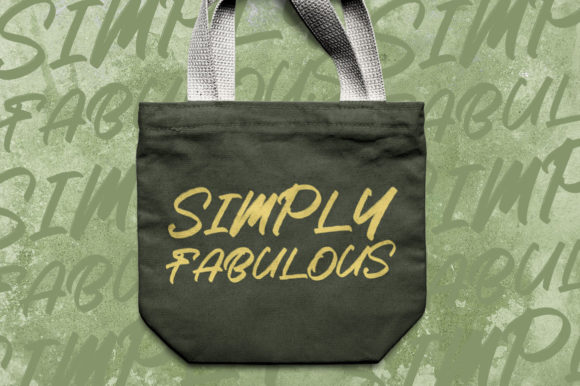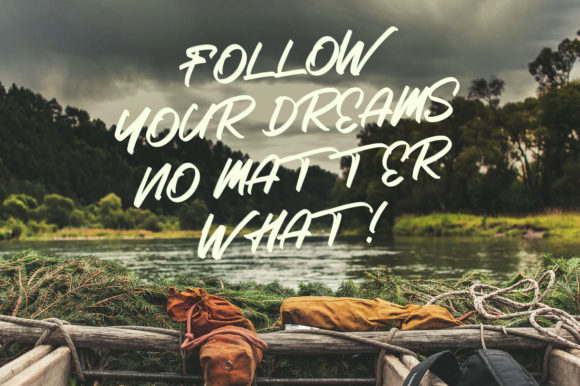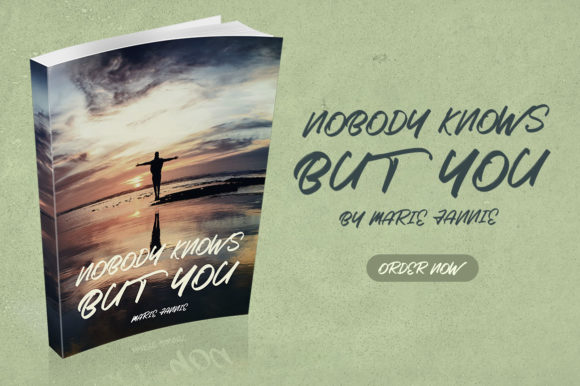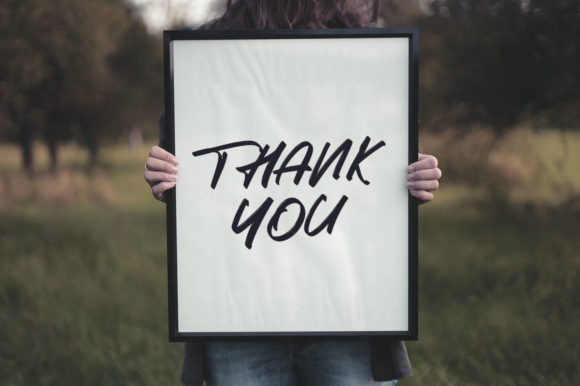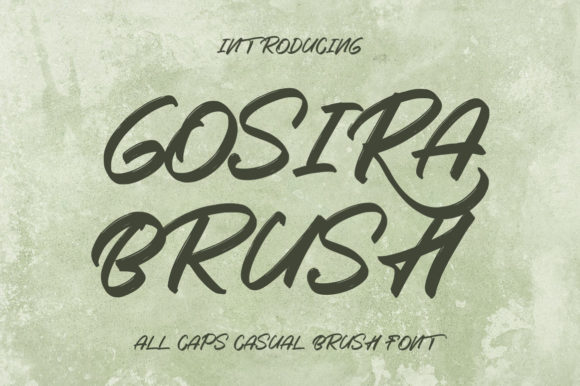
Gosira Brush Font: The Perfect Casual and Fun Display Font for Designers and Crafters
Are you looking for a font that can add a touch of personality to your designs? Look no further than the Gosira Brush Font. This casual, fun display font is created by using a brush pen, giving it a clean and quirky feel that’s perfect for a variety of projects. In this article, we’ll take a closer look at the Gosira Brush Font and explore its features, benefits, and uses.
What is Gosira Brush Font?
Gosira Brush Font is a display font that is designed to mimic the look of brush pen writing. It’s a casual and fun font that’s perfect for adding a personal touch to your designs. The font is clean and a little bit quirky, making it ideal for projects that require a bit of whimsy and personality.
Features of Gosira Brush Font
The Gosira Brush Font has several features that make it a great choice for designers and crafters. Some of its key features include:
- Unique and Quirky Design: The Gosira Brush Font has a unique and quirky design that’s perfect for adding a personal touch to your projects.
- Clean and Legible: Despite its quirky design, the Gosira Brush Font is clean and legible, making it easy to read and understand.
- Brush Pen Effect: The font is created by using a brush pen, giving it a natural and hand-crafted feel.
- Versatile: The Gosira Brush Font is versatile and can be used for a variety of projects, including logos, branding, social media, and crafty DIY projects.
Benefits of Using Gosira Brush Font
There are several benefits to using the Gosira Brush Font in your designs. Some of the benefits include:
- Adds Personality to Your Designs: The Gosira Brush Font adds a personal touch to your designs, making them more engaging and interesting.
- Perfect for Crafty DIY Projects: The font is perfect for crafty DIY projects, such as handmade cards, scrapbooking, and other paper crafts.
- Easy to Read and Understand: The font is clean and legible, making it easy to read and understand.
- Versatile: The Gosira Brush Font is versatile and can be used for a variety of projects, making it a great addition to your font library.
Uses of Gosira Brush Font
The Gosira Brush Font is perfect for a variety of projects, including:
- Logos and Branding: The font is perfect for creating unique and quirky logos and branding materials.
- Social Media Graphics: The Gosira Brush Font is great for creating social media graphics, such as Facebook posts, Instagram posts, and Twitter headers.
- Crafty DIY Projects: The font is perfect for crafty DIY projects, such as handmade cards, scrapbooking, and other paper crafts.
- Signage and Posters: The Gosira Brush Font is great for creating eye-catching signage and posters.
Tips for Using Gosira Brush Font
Here are some tips for using the Gosira Brush Font in your designs:
- Use it for Headings and Titles: The Gosira Brush Font is perfect for headings and titles, as it adds a personal touch and grabs attention.
- Pair it with Other Fonts: The font pairs well with other fonts, so feel free to experiment with different combinations.
- Use it for Small Text: While the Gosira Brush Font is great for headings and titles, it can also be used for small text, such as captions and descriptions.
| Font Name | Gosira Brush Font |
| Author | Kotak Kuning Studio |
The Gosira Brush Font is a unique and quirky display font that’s perfect for adding a personal touch to your designs. Its clean and legible design makes it easy to read and understand, while its brush pen effect gives it a natural and hand-crafted feel. Whether you’re a designer or a crafter, the Gosira Brush Font is a great addition to your font library.